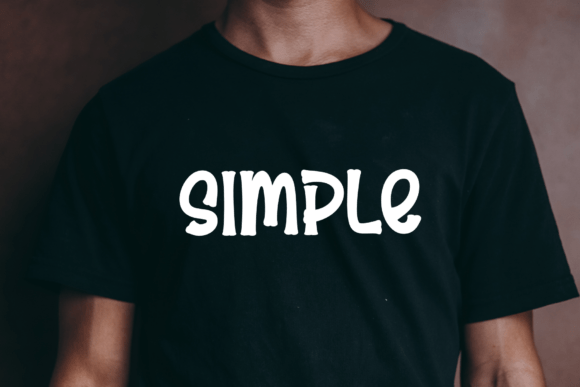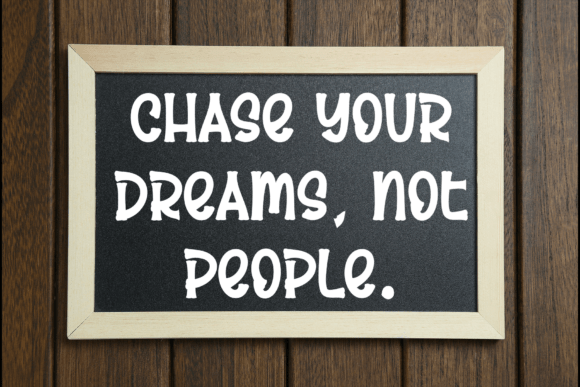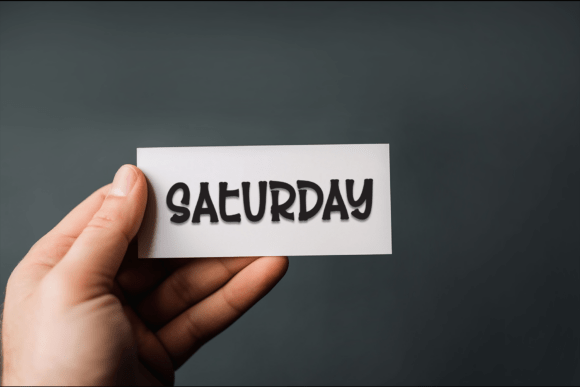
Introduction to Home Wicked Font
As a designer, you know that the right font can make all the difference in bringing your creative project to life. Whether you’re working on a branding campaign, designing packaging, or crafting digital content, the perfect font can elevate your work and leave a lasting impression on your audience. I still remember the thrill of discovering the perfect font for a project – it’s like finding a missing piece of a puzzle that suddenly brings everything together.
One font that has captured the hearts of designers is the Home Wicked Font, a high-quality display font that exudes simplicity and approachability. With its clean lines, balanced letterforms, and subtle rounded edges, it’s perfect for adding a warm and inviting touch to any design. And the best part? It’s available for free download, making it an invaluable resource for designers of all levels.
Key Features of Home Wicked Font
- High-quality, unique font design ideal for creative projects
- Features a transparent background, allowing for seamless integration with various designs
- Perfect for designers, artists, and creatives seeking a distinctive and stylish font for their projects
- Home Wicked Font is a versatile design element that can add a touch of sophistication and elegance to any creative project
Honest Review: Home Wicked Font
As a designer, I’m always on the lookout for high-quality design resources that can elevate my creative projects. Recently, I had the chance to try out the Home Wicked Font, and I’m excited to share my thoughts with you.
One of the things that caught my eye about this font is its free download option. I love that it’s available to anyone who wants to give it a try, and it’s a great resource for those just starting out or on a tight budget. The font itself is also really well-designed, with a unique and quirky style that’s perfect for adding a touch of personality to your work.
Here are some of the things that work well about the Home Wicked Font: ✨
- High-quality design with a transparent background
- Unique and quirky style that’s perfect for creative projects
However, I did encounter a few limitations while working with the font: ⚠️
- Limited character set, which may not be suitable for longer blocks of text
- Not as versatile as some other fonts, may not work well for more formal projects
Overall, I think the Home Wicked Font is a great addition to any designer’s toolkit. While it may have some limitations, its unique style and high-quality design make it a great choice for creative projects where you want to add a touch of personality.
Tips for Getting the Most Out of Home Wicked Font
For the best results, use the Home Wicked Font in conjunction with a high-quality design resource. Consider using a transparent background to add depth and visual interest to your design.
The Home Wicked Font is ideal for creative projects, such as:
- Typography-based designs
- Branding and logo designs
- Print and digital marketing materials
Alternatives to Home Wicked Font
Circular Std
Circular Std is a high-quality, modern sans-serif font that is perfect for creative projects requiring a clean and minimalist aesthetic. It’s available for free download and features a transparent background, making it ideal for logos and branding. When to use: Circular Std is suitable for any project that needs a professional and sleek look.
Compared to Home Wicked Font, Circular Std is more minimalist and lacks the distressed texture found in Home Wicked Font. However, it’s a great choice for designers who want a clean and sophisticated look.
Playfair Display is a luxurious and elegant script font that is perfect for high-end creative projects. It’s available for free download and features a transparent background, making it ideal for logos, branding, and typography. When to use: Playfair Display is suitable for any project that needs a touch of sophistication and elegance.
Compared to Home Wicked Font, Playfair Display is more formal and less distressed, making it a great choice for designers who want to add a touch of luxury to their project.